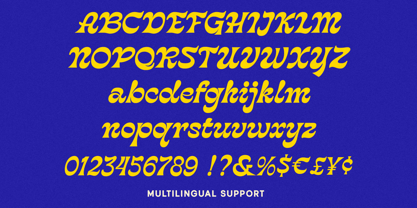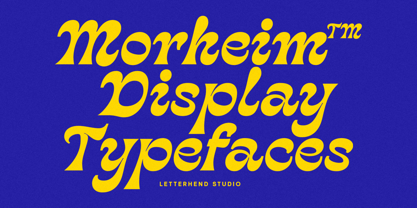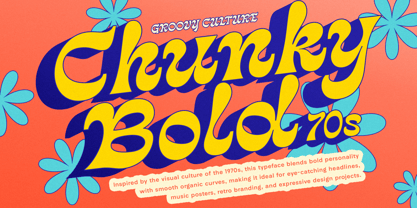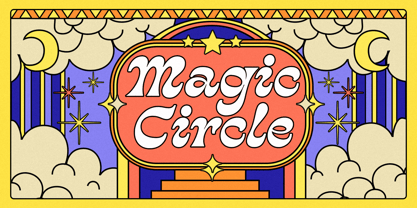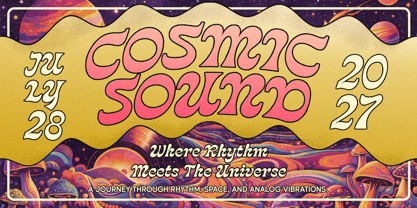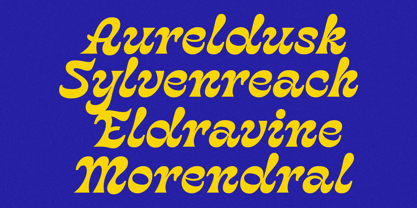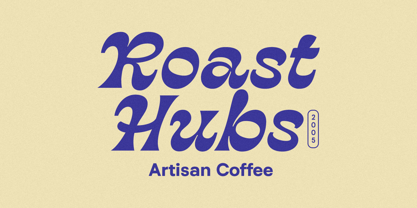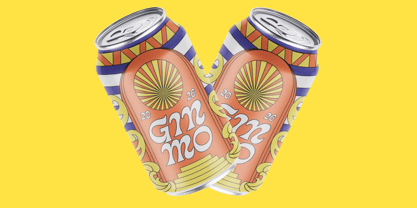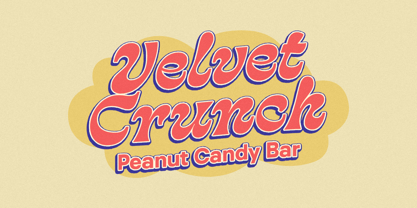
Morheim
Morheim Display feels bold, juicy, and full of attitude—like a splash of golden type on a deep night backdrop. With its chunky curves, soft serif edges, and slightly groovy rhythm, this typeface brings a playful retro punch while still looking clean and confident. The shapes are smooth but expressive, giving every word a lively bounce that stands out instantly. Features : Uppercase & lowercase Numbers and punctuation Alternates & Ligatures Multilingual Support PUA encoded